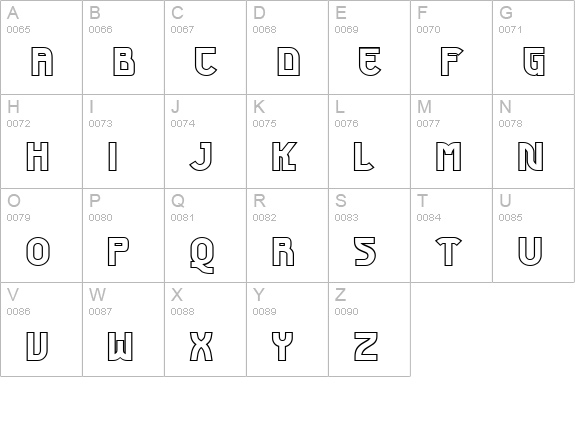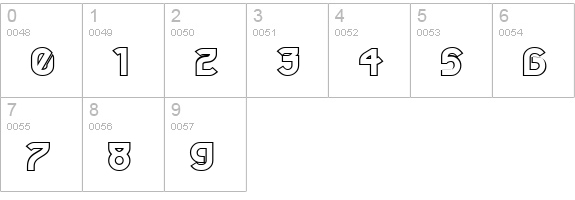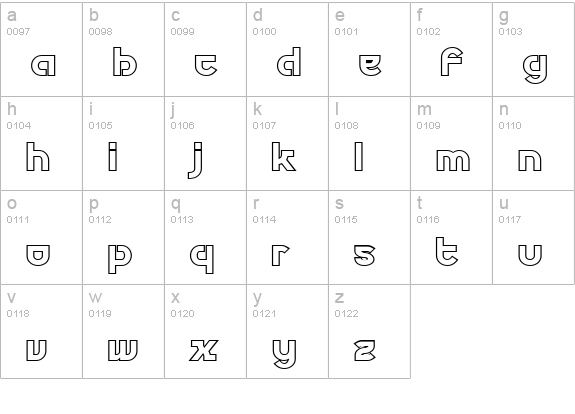
Futurex Phat Outline is a bold and eye-catching display font that is perfect for making a statement. This unique typeface features thick outlines that give it a modern and futuristic look. Whether you're designing a poster, logo, or heading, Futurex Phat Outline is sure to grab attention and leave a lasting impression. The best part? Futurex Phat Outline is available for free download at FontsMarket.com. This means you can easily add this striking font to your collection without breaking the bank. Don't miss out on the opportunity to enhance your designs with the bold and dynamic style of Futurex Phat Outline. Download it today and start creating standout visuals that demand attention.